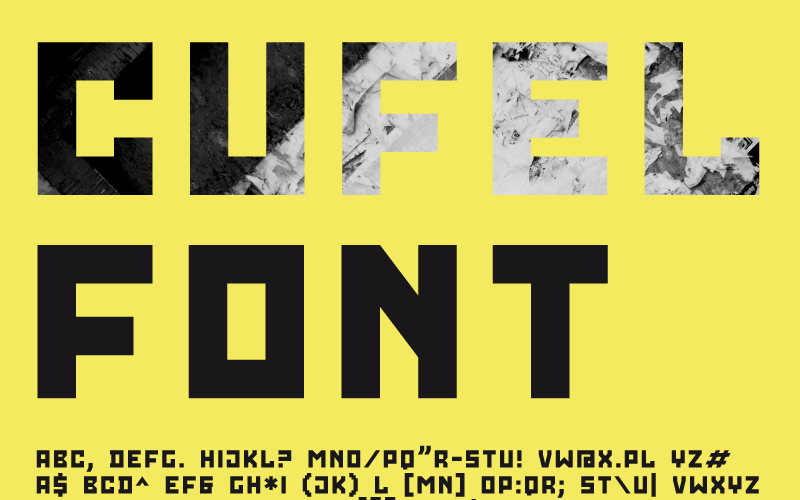
CUFEL Font by Fontsphere Font Foundry
CUFEL is a typeface created by Fontsphere / Bartosz Panek.
Font originally created for a series of futuristic, pixel-art posters.
The style of letters refers to the earlier pixel fonts from Fontsphere, but with a view to wider use in creating many great and original graphics.
Best for bold, expressive headlines, posters, graphics created by the use of typography and photos, and designer t-shirts.